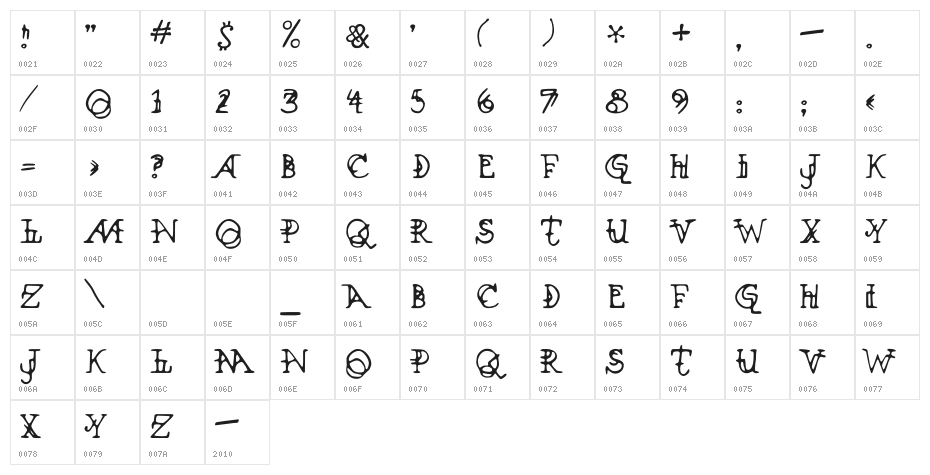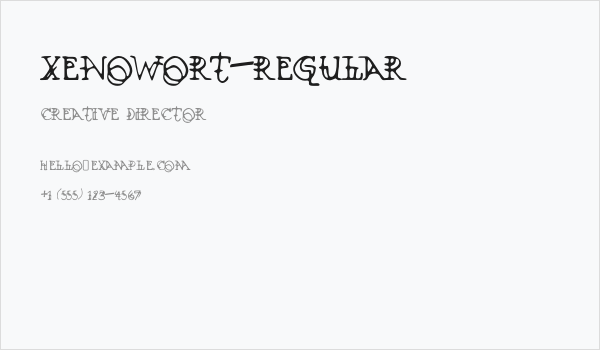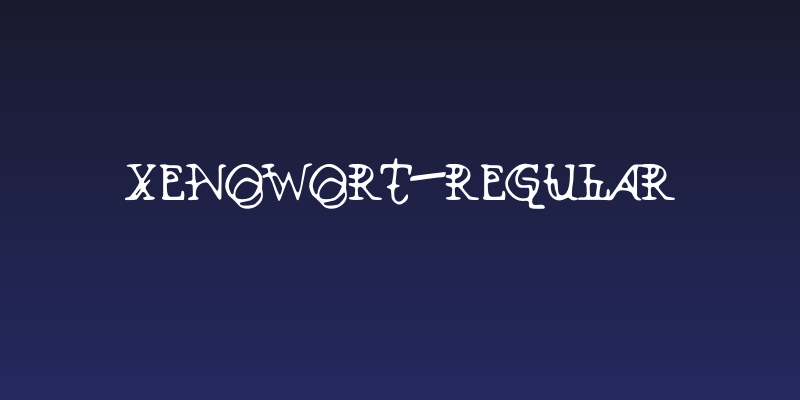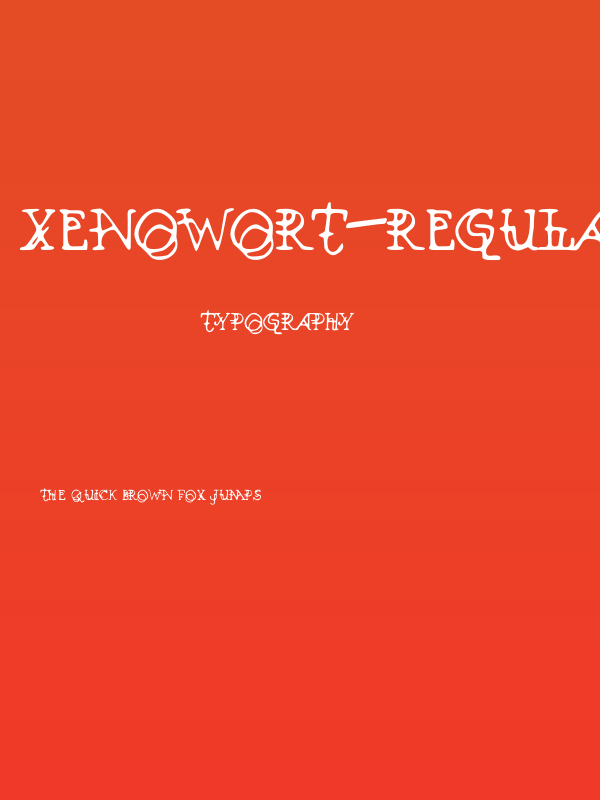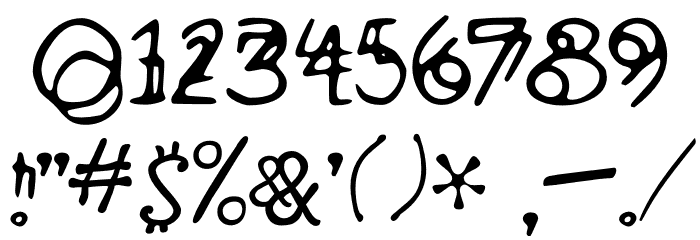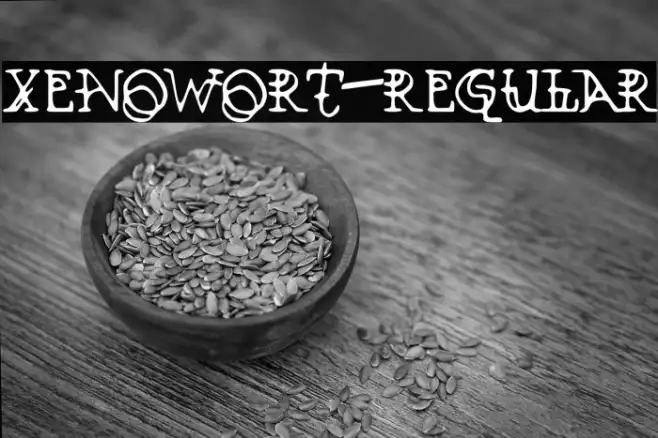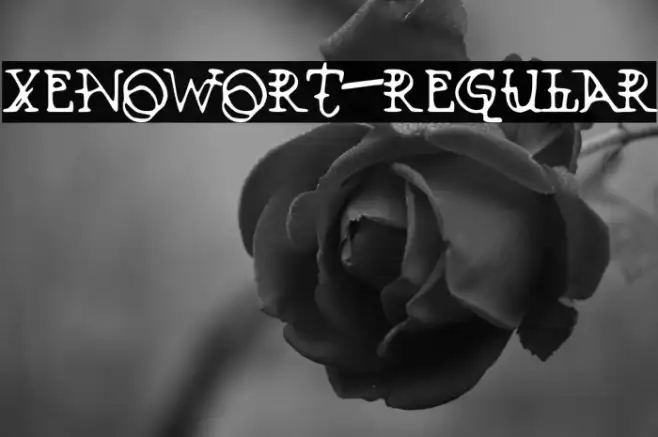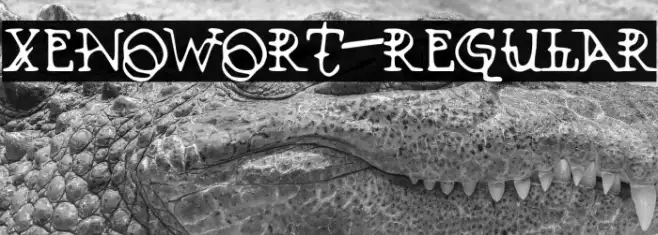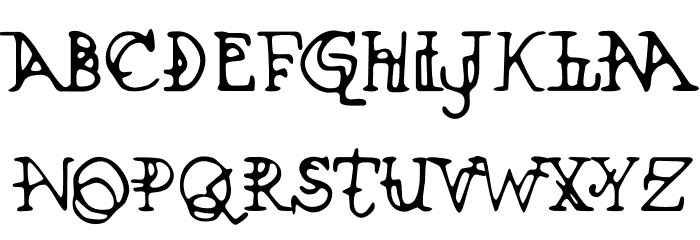
Xenowort-Regular Font
Xenowort-Regular Description
This font features a unique and artistic design, characterized by its decorative and whimsical elements. The letters exhibit a playful and slightly chaotic style, with exaggerated curves and loops that give it a distinctive appearance. The strokes are bold and varied, creating a dynamic and eye-catching effect. This font is ideal for creative projects that require a touch of fantasy or a hand-drawn aesthetic. Its intricate details and bold presence make it suitable for headlines, posters, and other display purposes where a strong visual impact is desired.
| Proposed Projects | Ideal for fantasy-themed posters, creative branding, artistic book covers, and unique event invitations. |